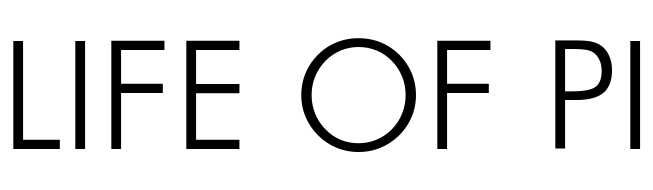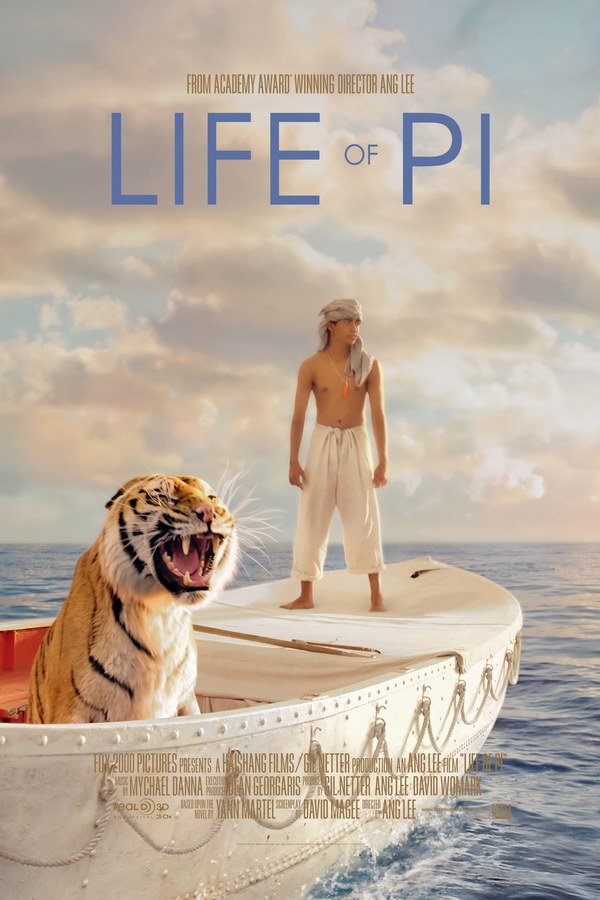
Life of Pi Font
AdventureLife of Pi is an American adventure drama movie based on Yann Martel’s 2001 novel. The movie tells the story of a 16-year-old boy, Pi Patel who survives in an adrift lifeboat in the middle of nowhere. His chances of survival are threatened by the presence of a male Bengal tiger aboard the lifeboat.
The Life of Pi title on the poster is set in Futura, which is a commercial typeface designed by Paul Renner back in 1927. You can view more details about the typeface here.